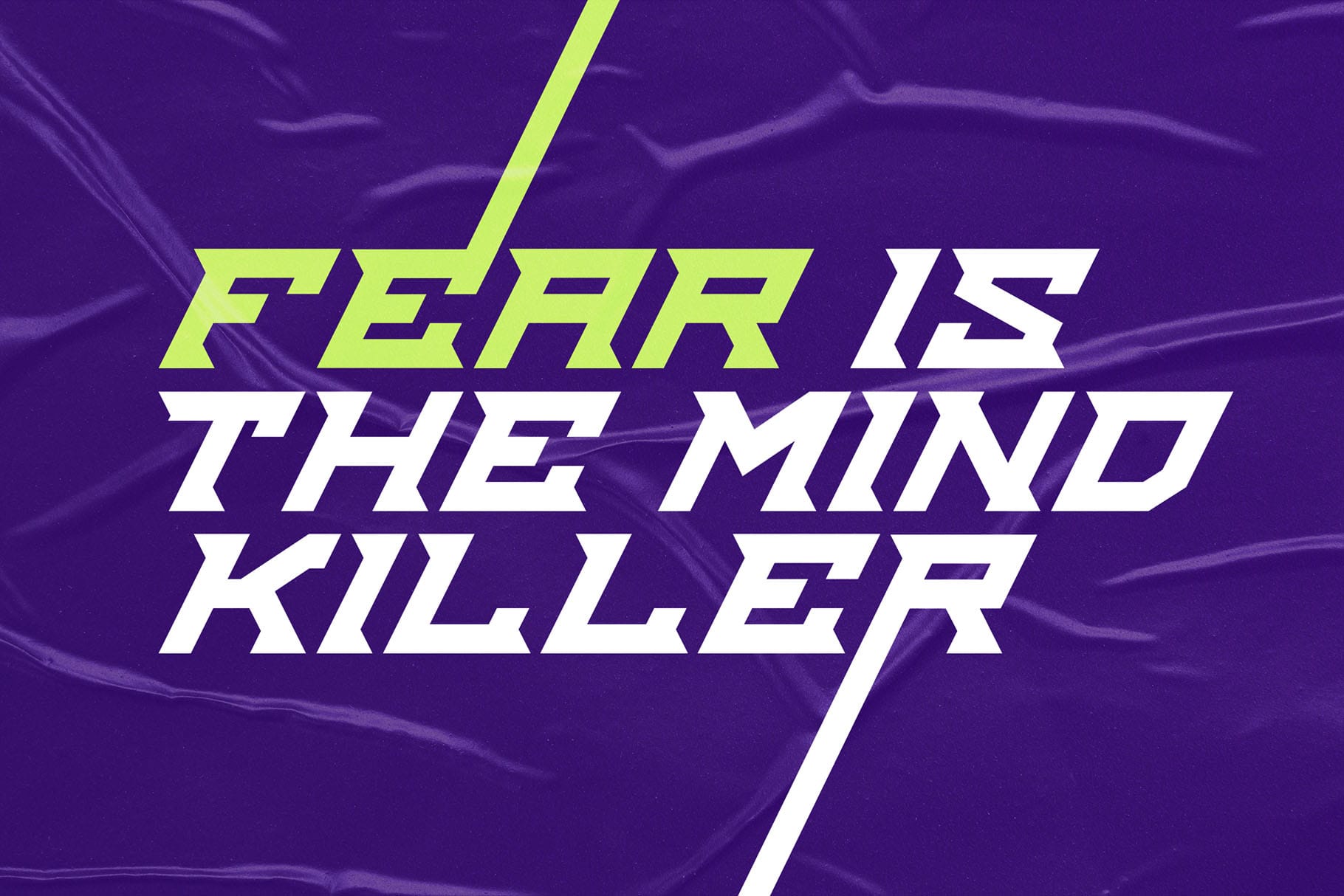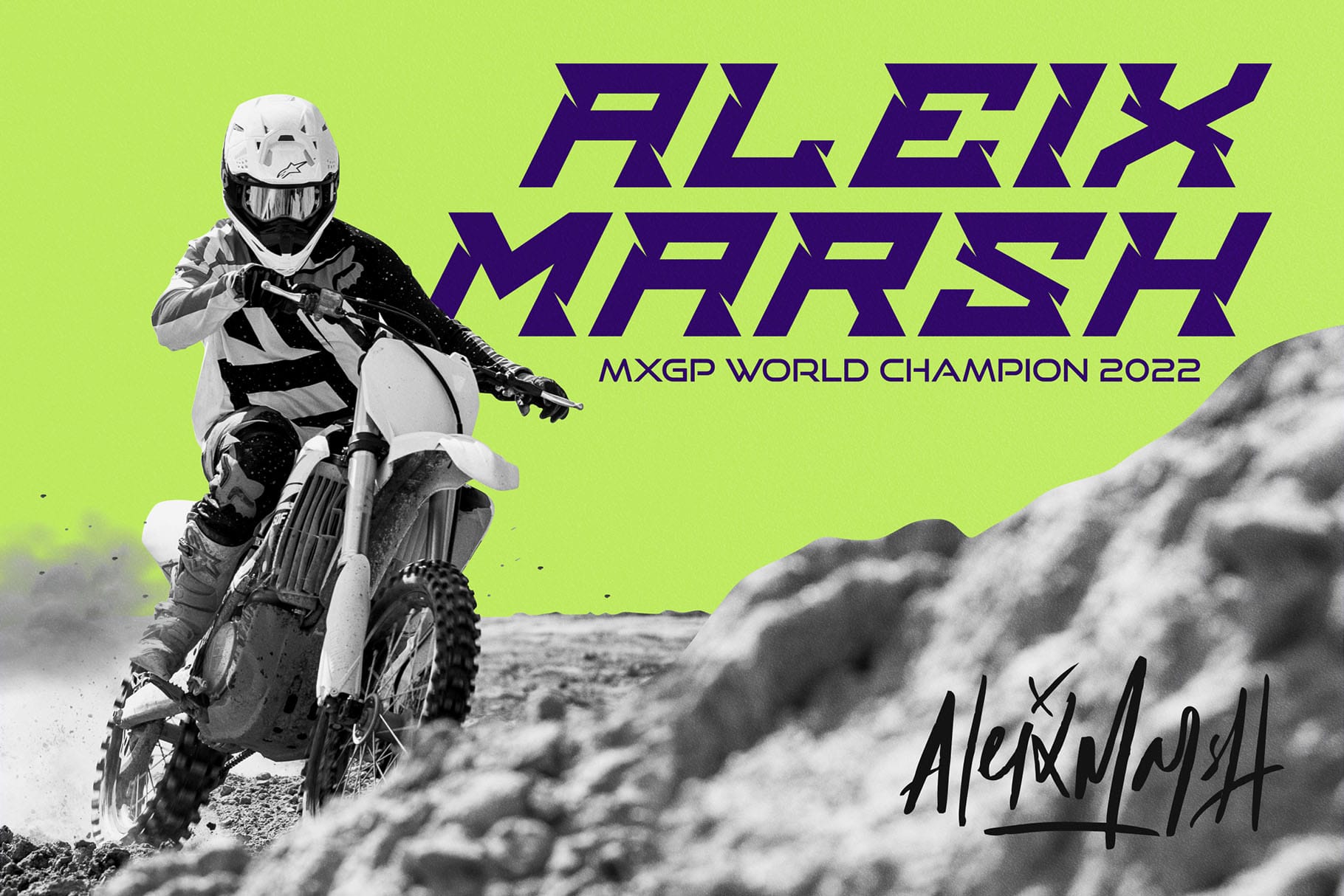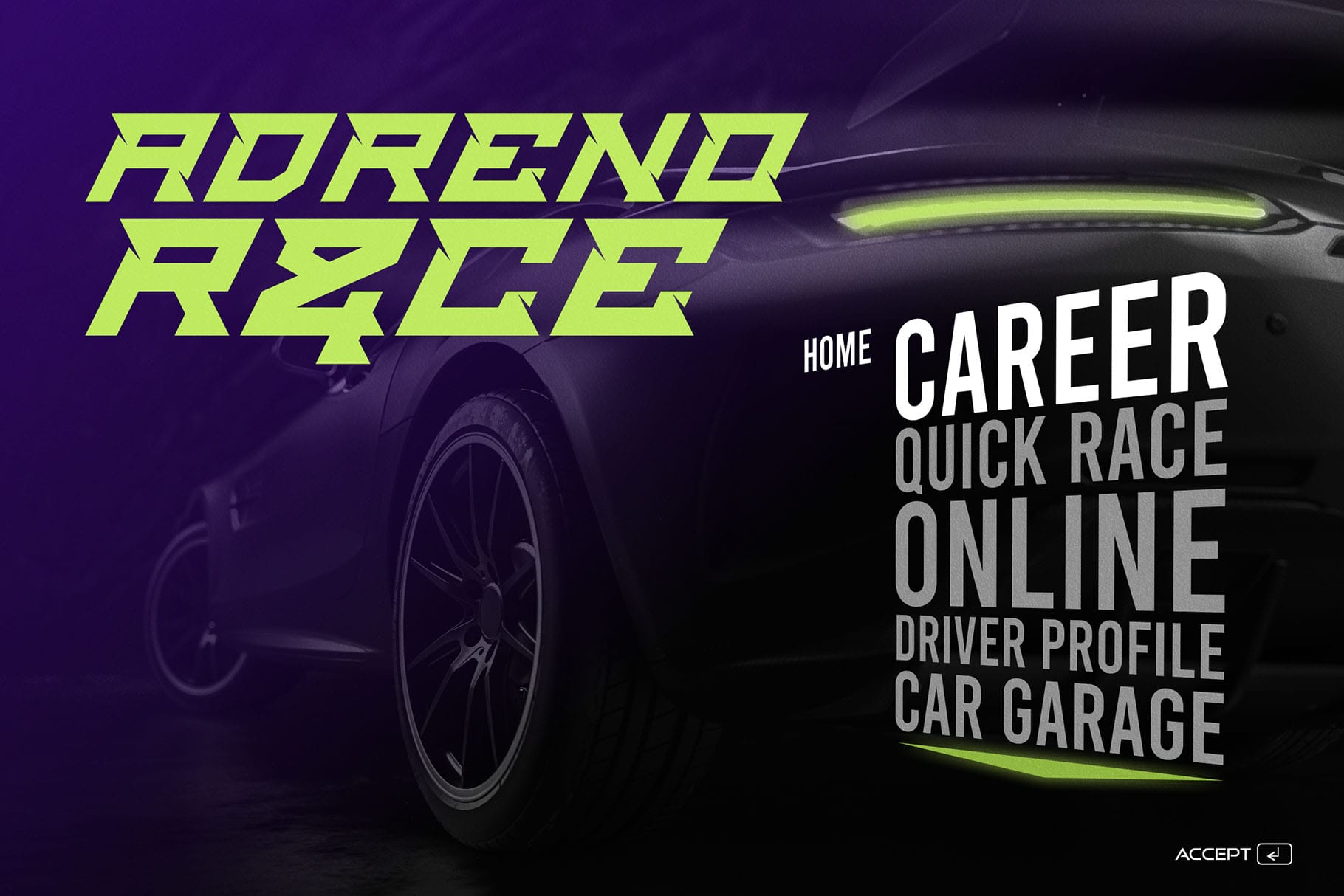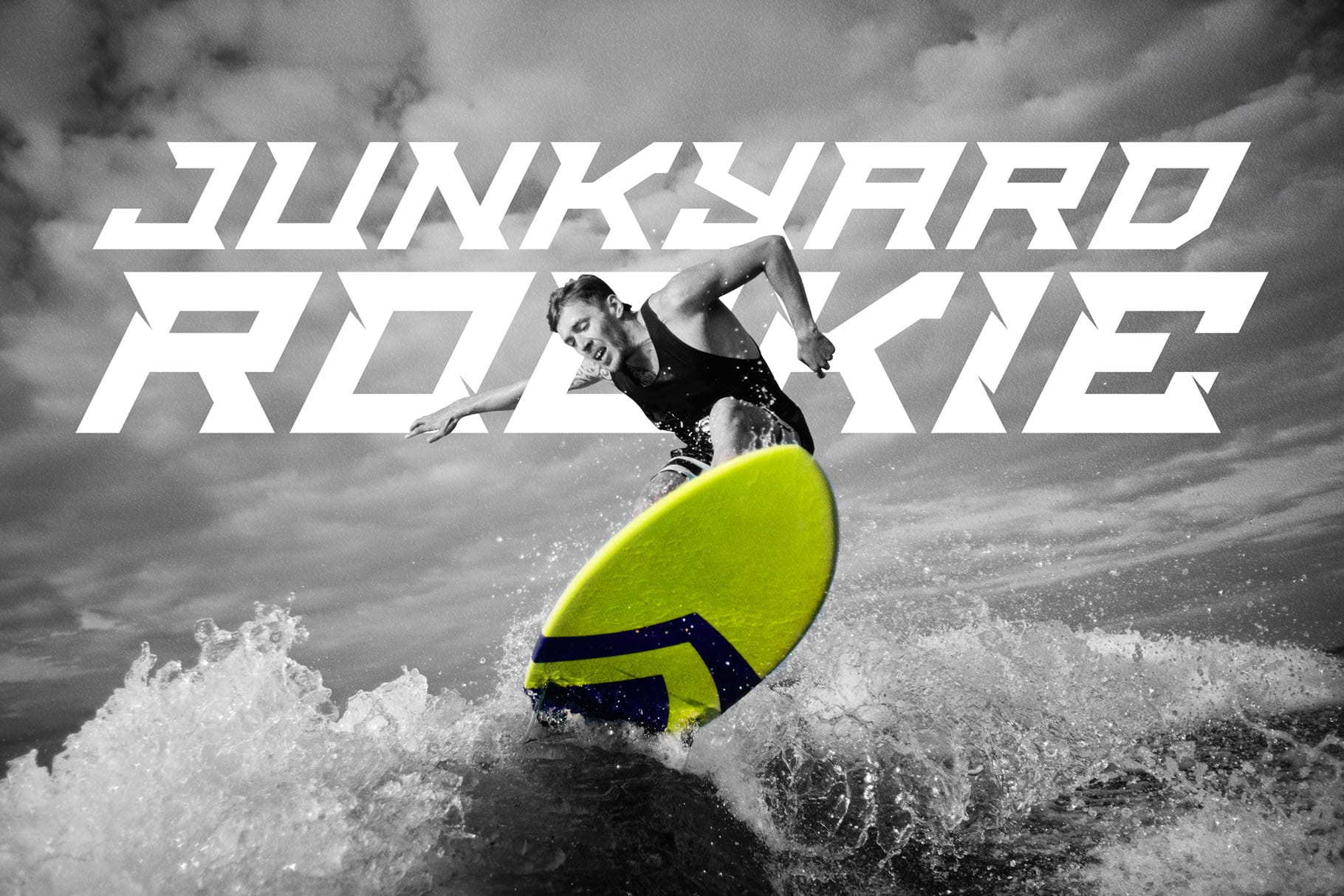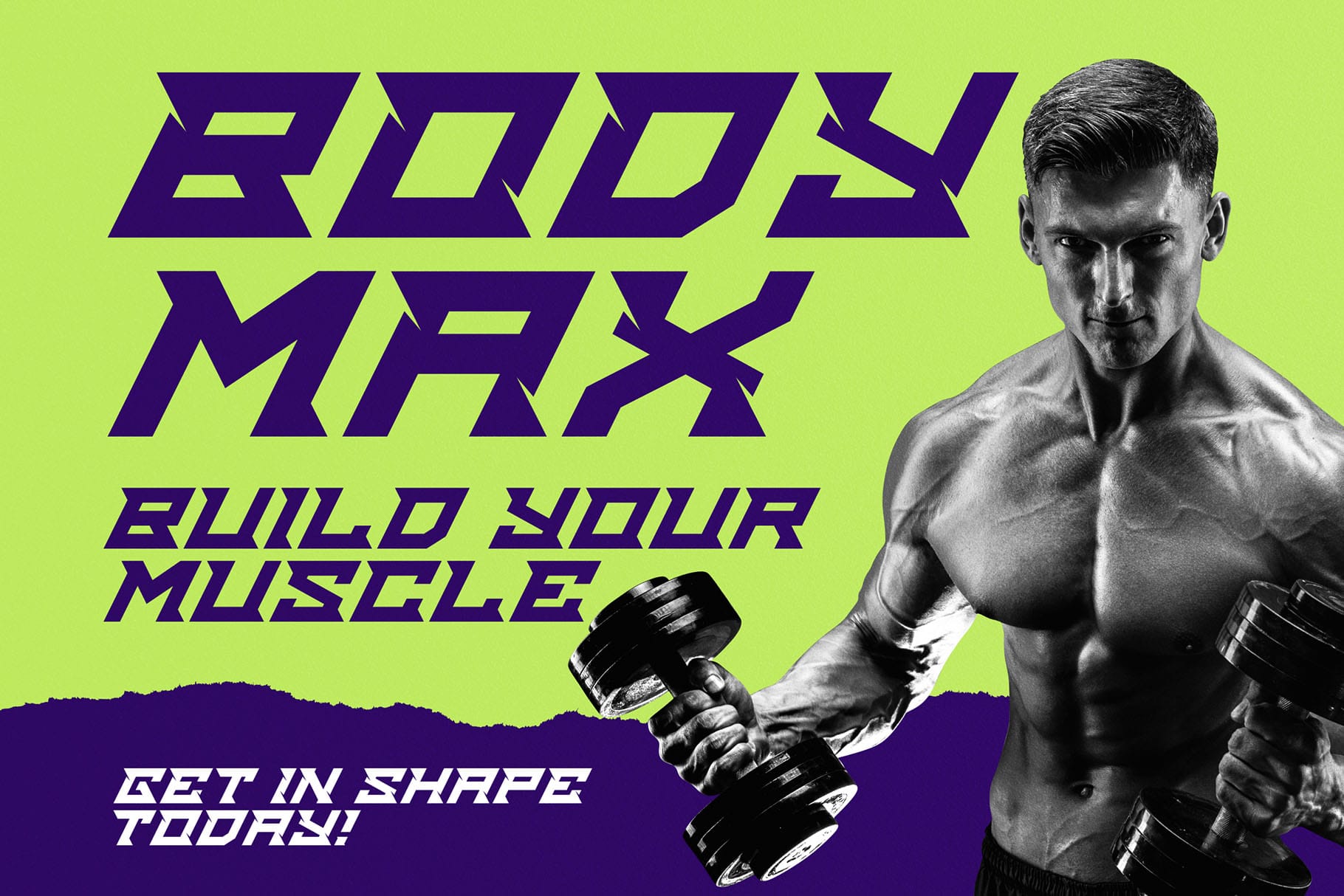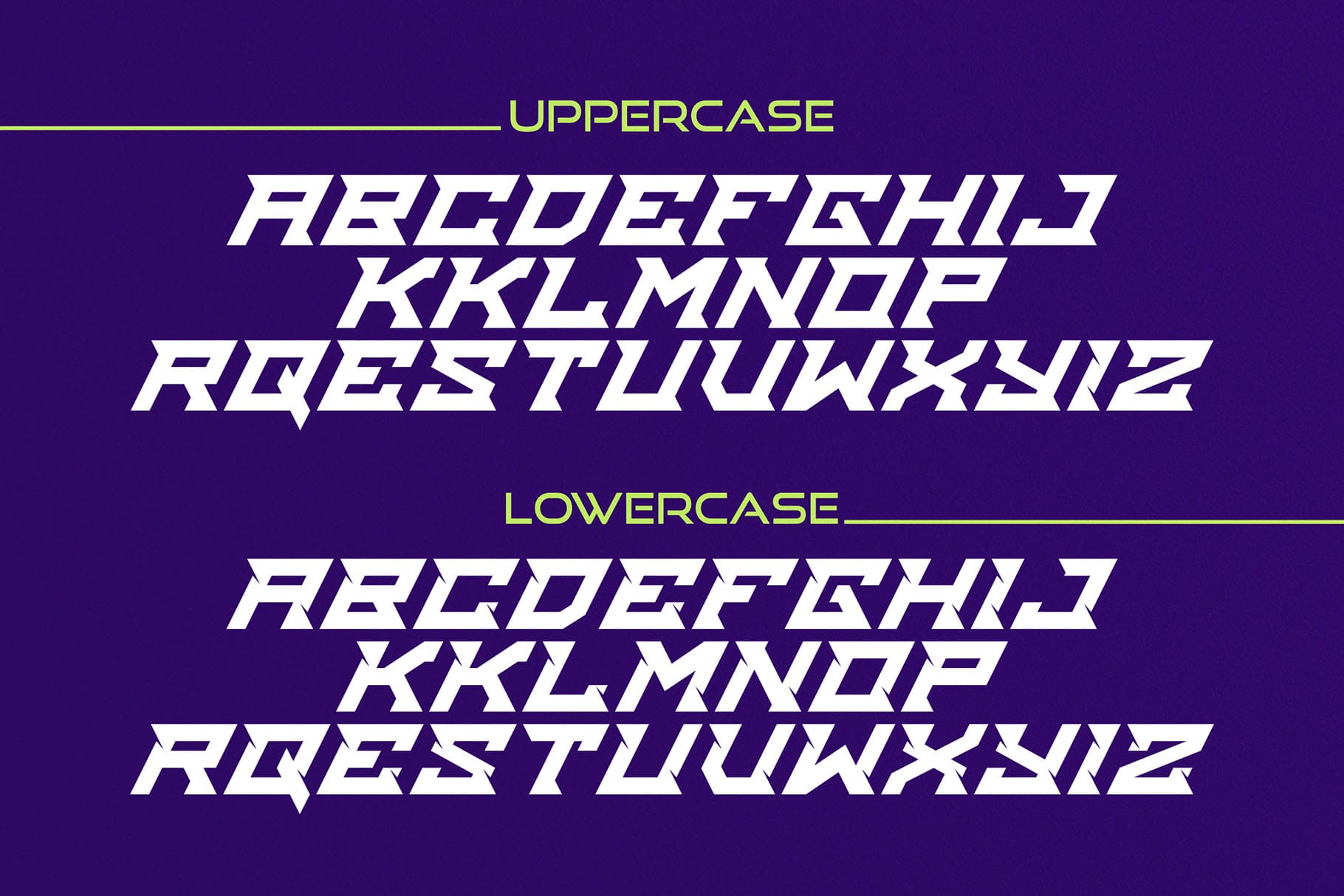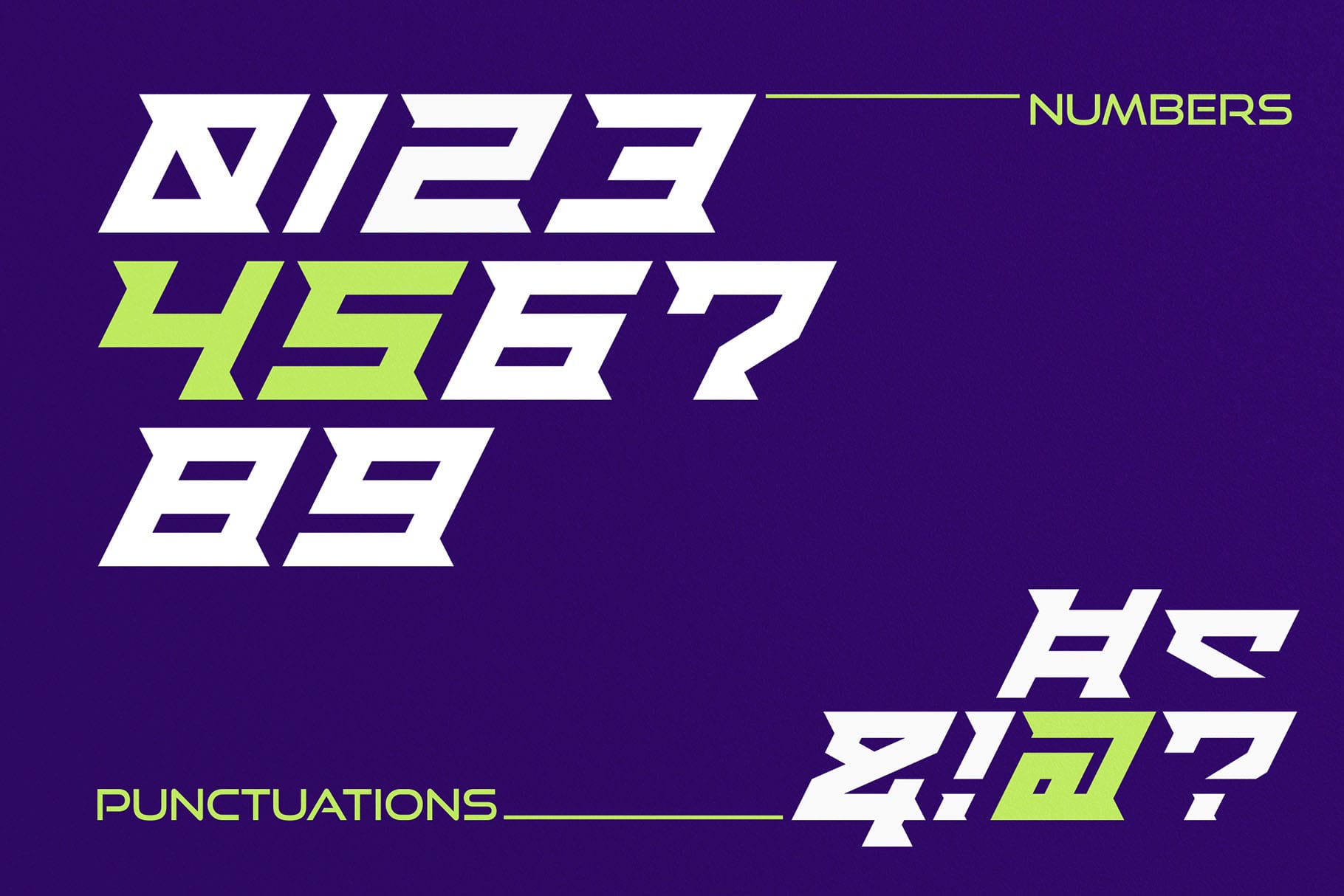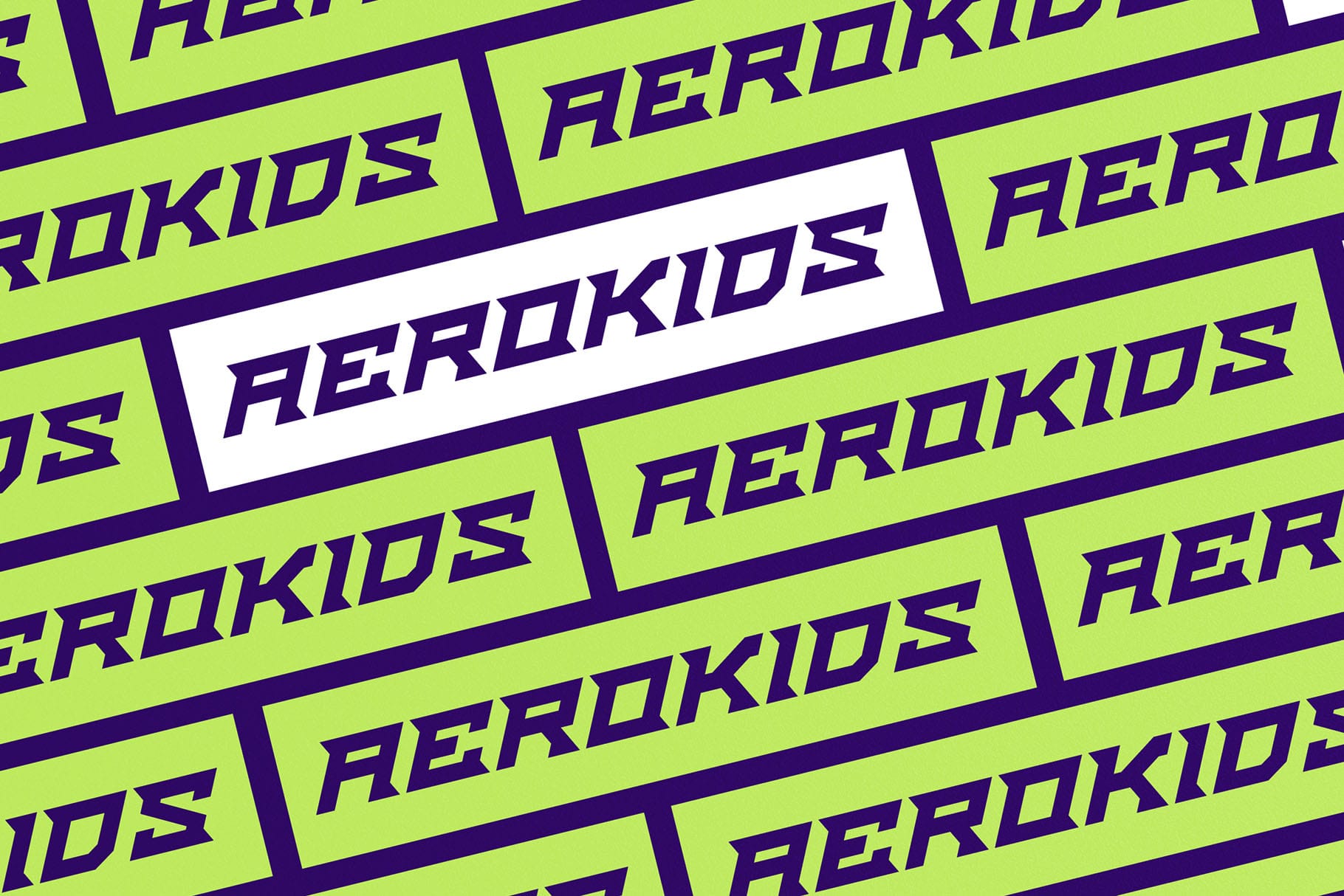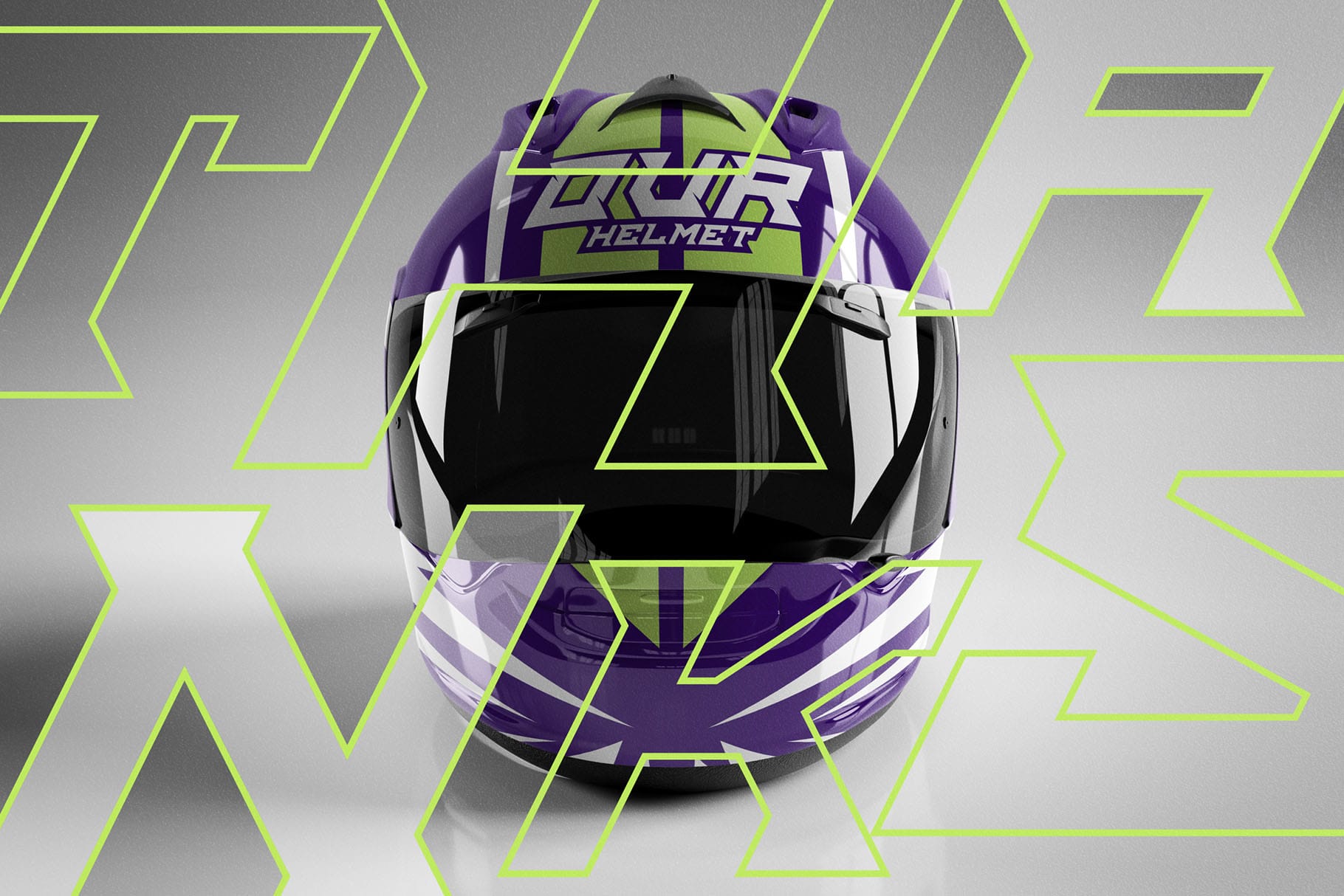
Sonic Turbo is Powerful Racing Theme Font. The font is ready to be used for your racing sports or automotive-related projects.
Built to be perfect for headlines, jerseys, logos, branding, posters, packaging, advertising, and much more.
- Versatile for branding, headline, or printing product